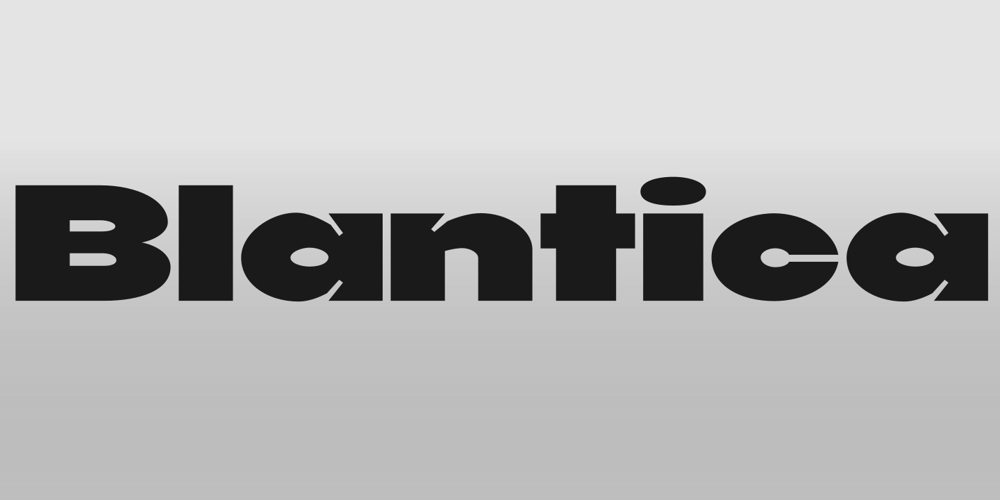
Blantica
Blantica font
Blantica Font Family was designed by Arief Rochman and published by 4RM Font. Blantica contains 1 styles and family package options. Blantica font is inspired by something harmonious and is made with variations in inktrap with bold font sizes making this font look unique and harmonious. suitable in the use of display fonts and graphic designs such as logos, covers, and others.